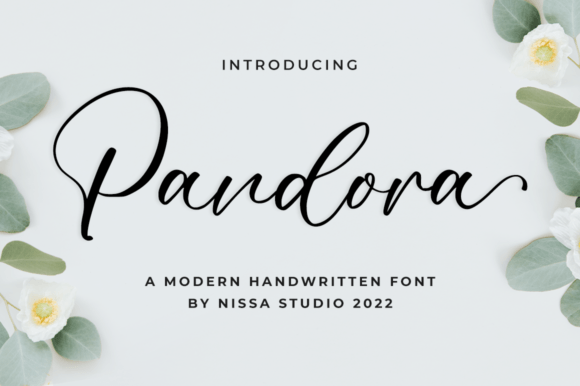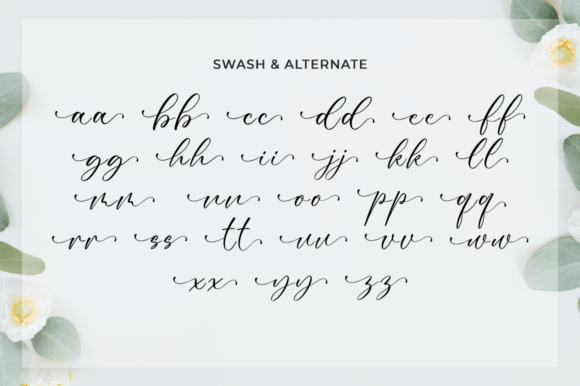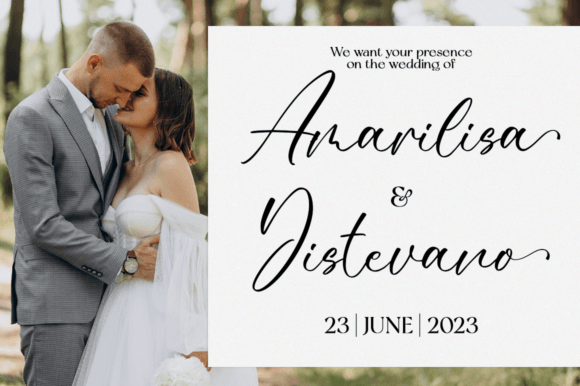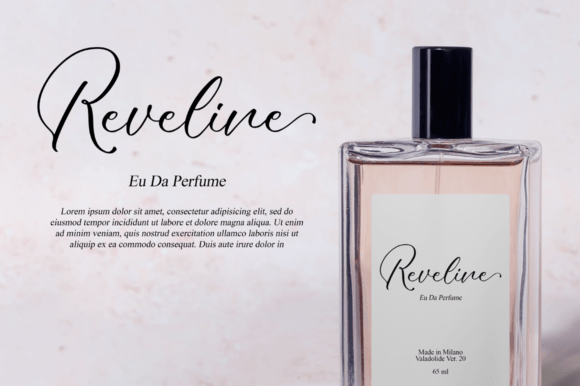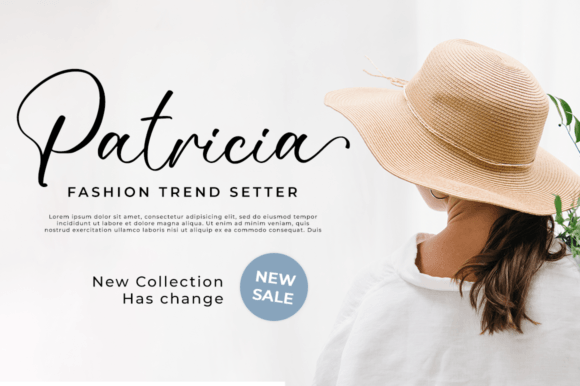
Pandora Font
About Pandora Font
“Pandora” is a delightful and delicate script font that radiates elegance and class, offering a beautiful and refreshing look to your designs. Whether you’re working on invitations, branding, or any project that demands a touch of sophistication, “Pandora” proves to be an excellent choice.
The font’s lovely script style is characterized by its delicate strokes and graceful curves, contributing to an overall aesthetic that is both charming and refined. This elegance makes it particularly suitable for projects where a sense of class and beauty is paramount.
An additional feature of “Pandora” is its PUA encoding, providing convenient access to all the glyphs and swashes. This encoding not only facilitates ease of use but also opens up a realm of customization possibilities, allowing you to tailor the font to suit your unique creative vision.
Whether you’re designing wedding invitations, crafting a brand identity, or working on any creative endeavor, “Pandora” adapts seamlessly to diverse design contexts. Its delicate script brings a touch of femininity and sophistication to your text, ensuring that your message is not just communicated but is communicated with style.
In summary, “Pandora” is more than just a font; it’s a design asset that brings a lovely and refined touch to your projects. With its elegance, delicacy, and PUA encoding, “Pandora” stands as a versatile tool for designers seeking to elevate their creations with a script font that exudes beauty and sophistication.